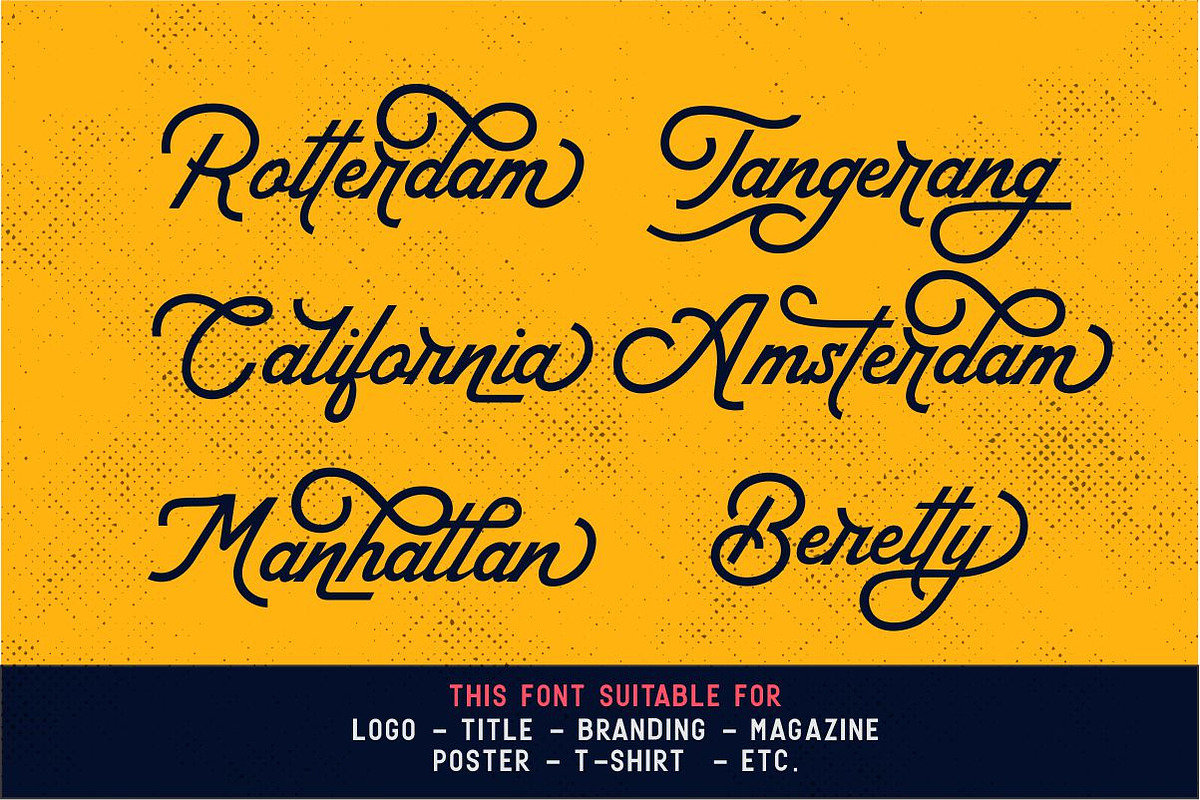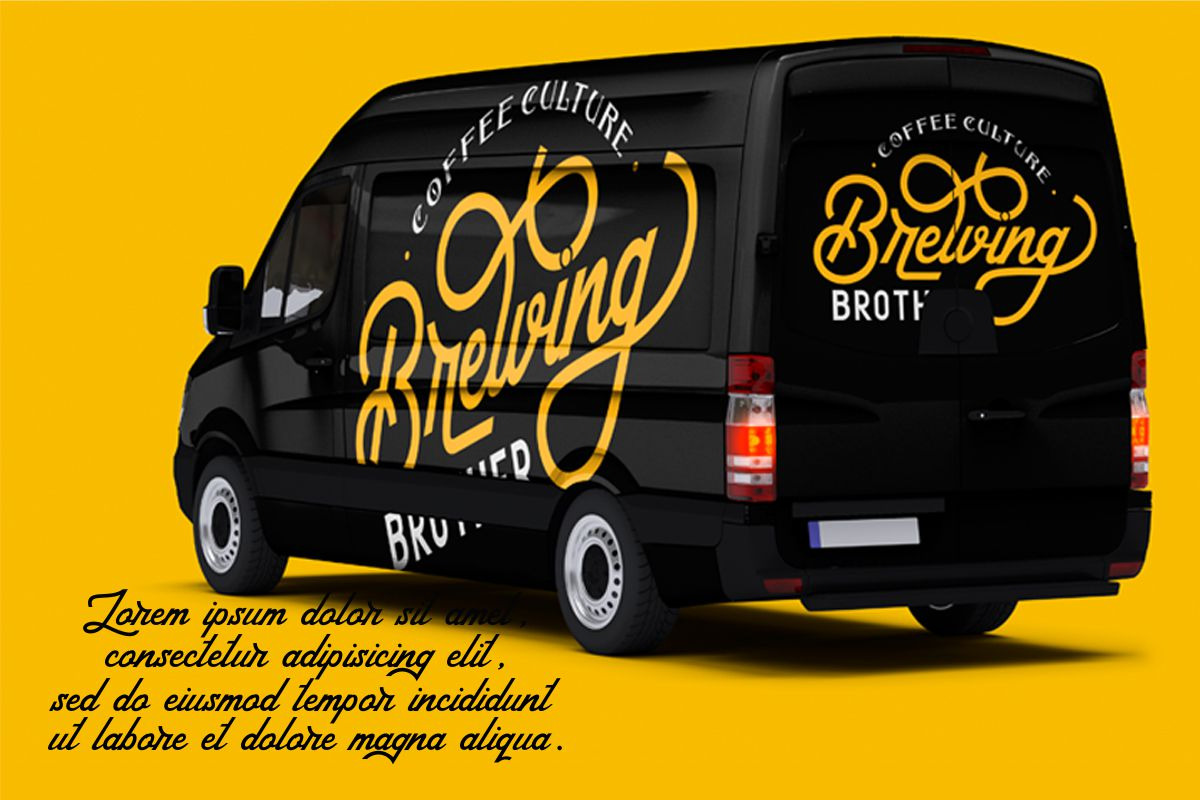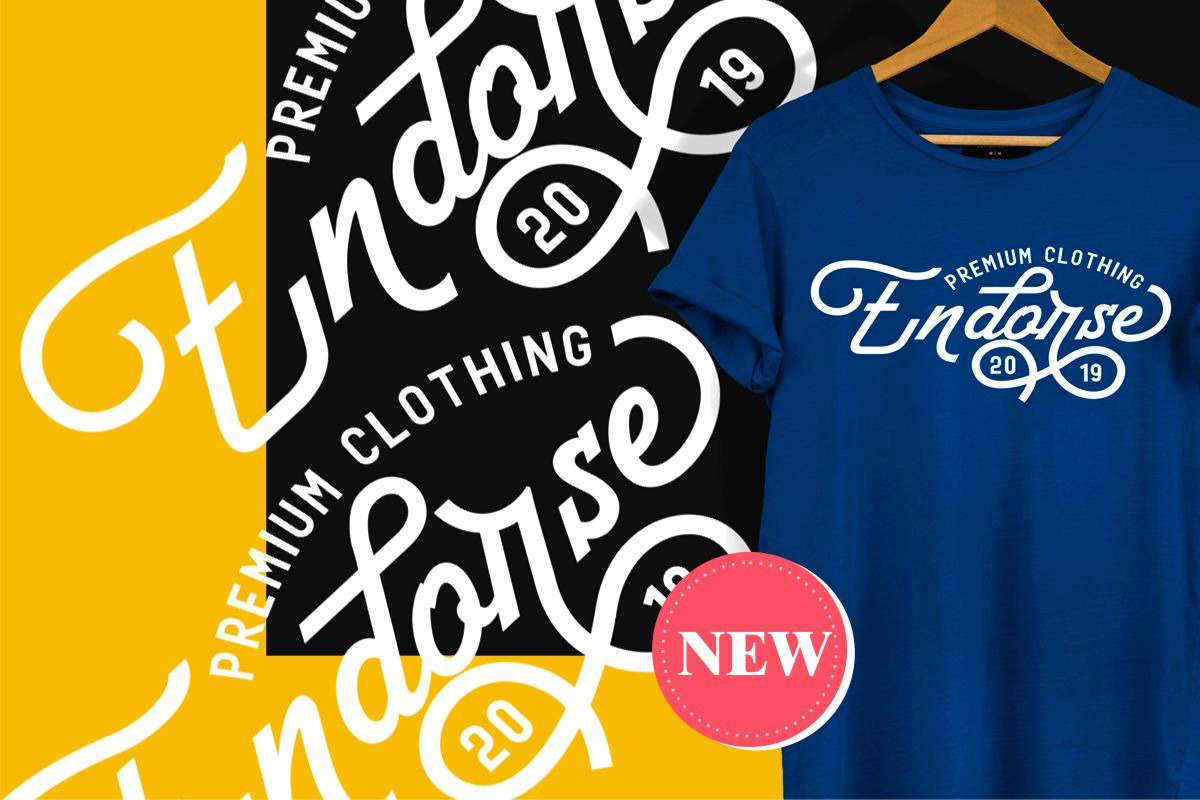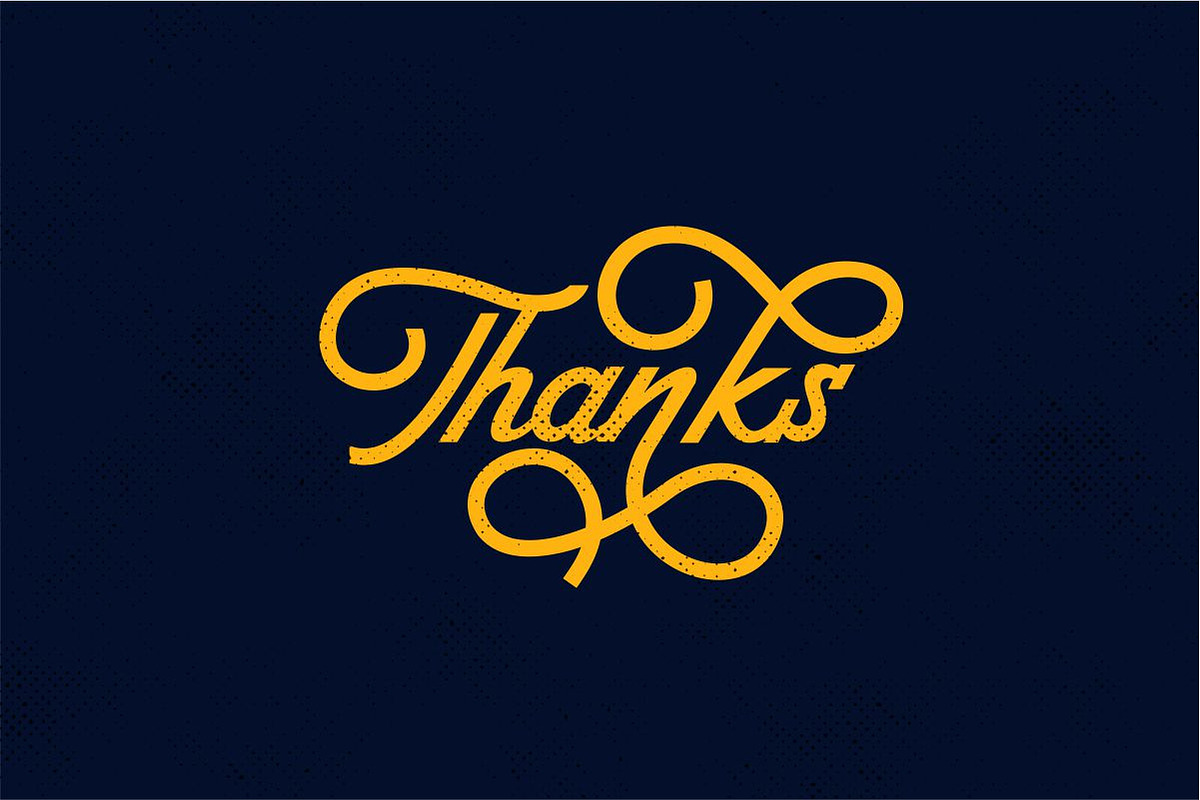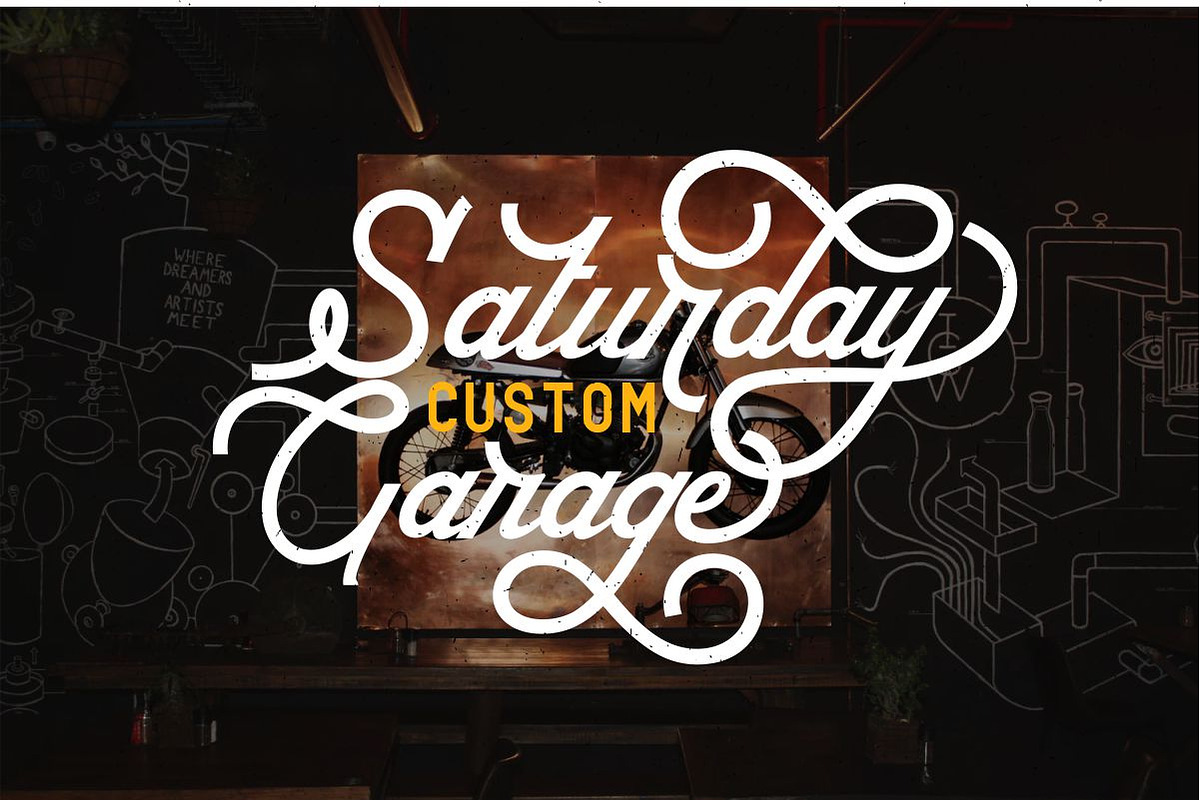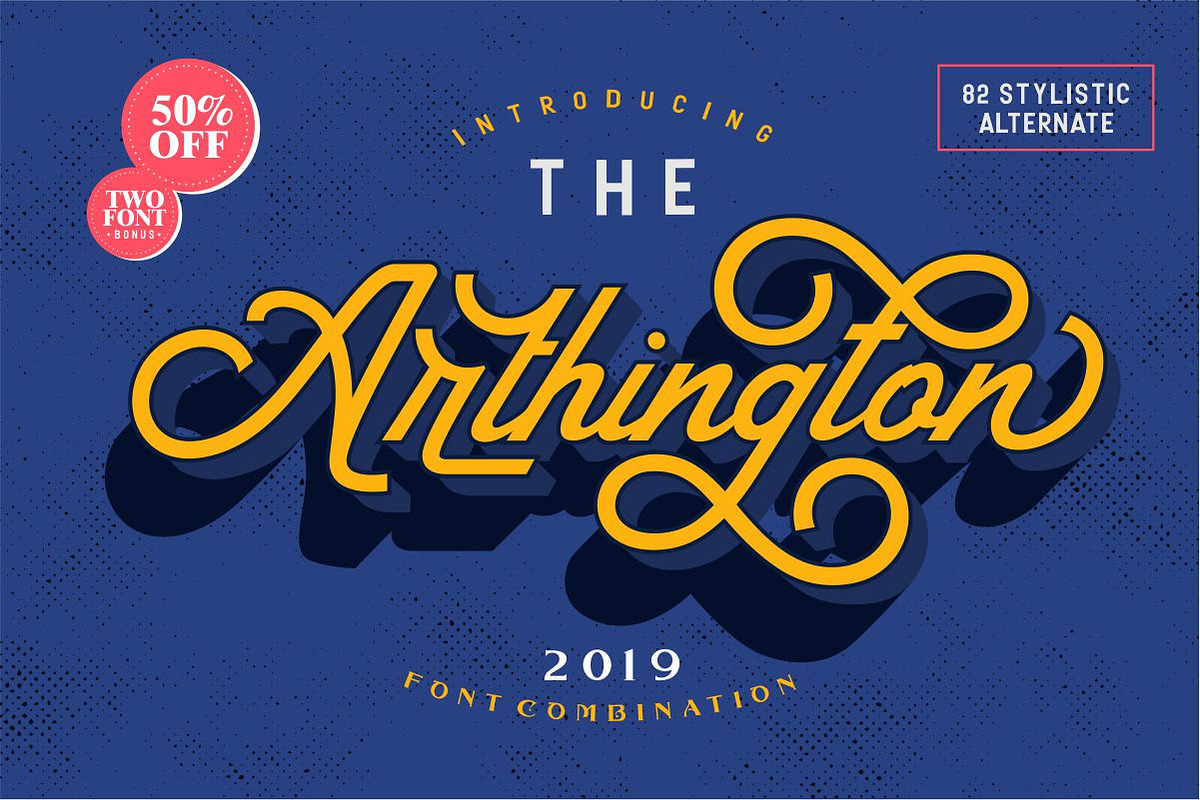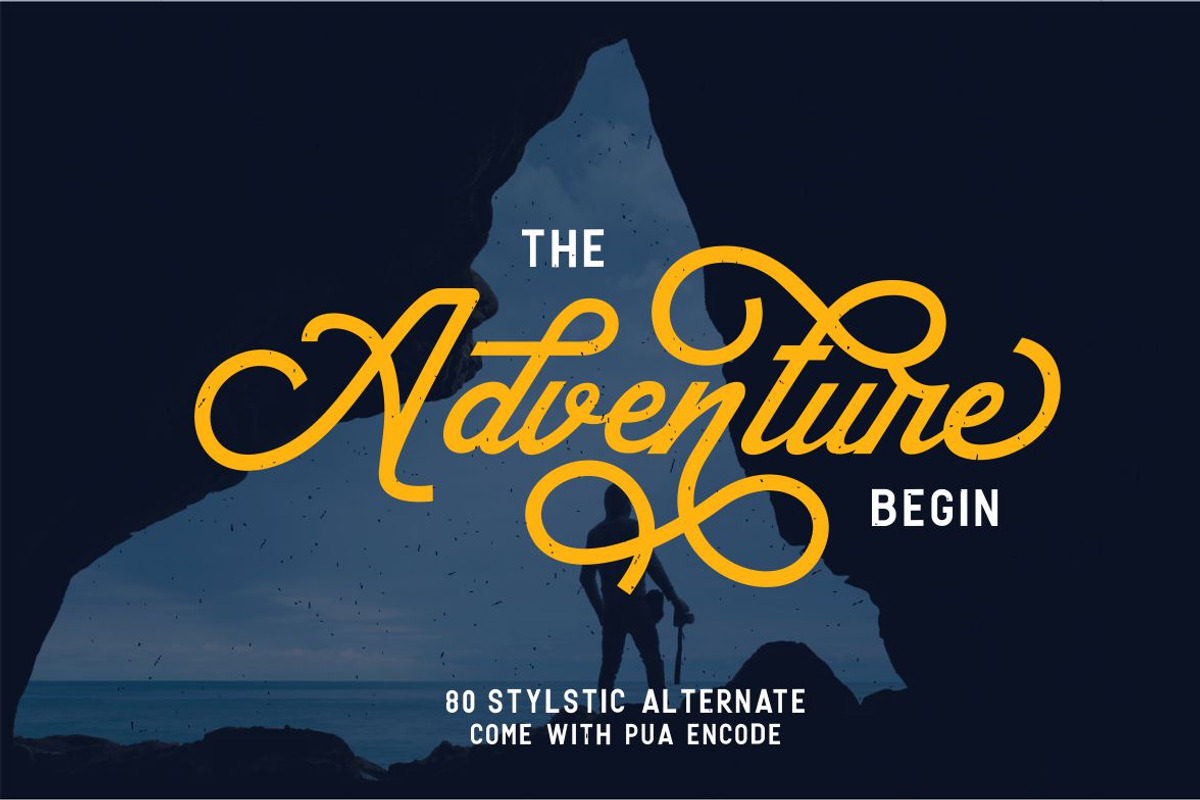
The Arthington + Bonus 2 font.
Arthington is Combination Font With 82 Stylistic Altrenate and 2 font Bonus Collonar typeface and Geronimo typeface.
Arthington Suitable for : designs logo,Branding,title,t-shirt design,typhography,magazine,book, or antyhing do you want. arthington font combination come with vintage taste..It's recommended to use it in opentype capable software because This font already uses a- z lowercase alternate,ligature.swash with PUA encode,This font is very easy to use for everyone, because I make it so simple but has a very clean ,strong and bold and futuristic taste, this font has a lowercase alternative and uppercase which is very similar to handwriting using a bold brush so it is suitable for branding, logos, lettering,quote,wedding, designs logo,Branding,title,t-shirt design,typhography,magazine,book, or antyhing
- More than 300 of glyphs.
- Ligature & Stylistic alternate.
The Arthington + Bonus 2 font. by typeline studio fits naturally into Branding, posters, packaging, typography.